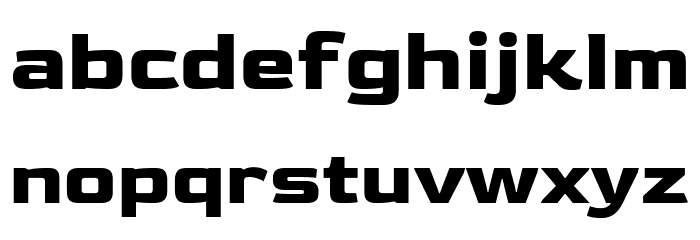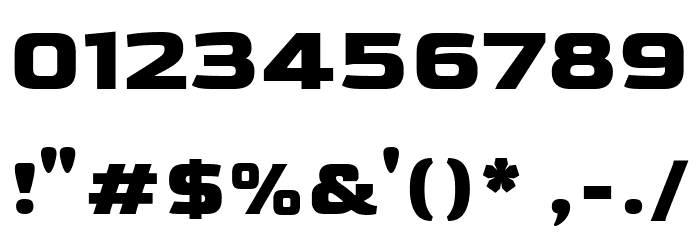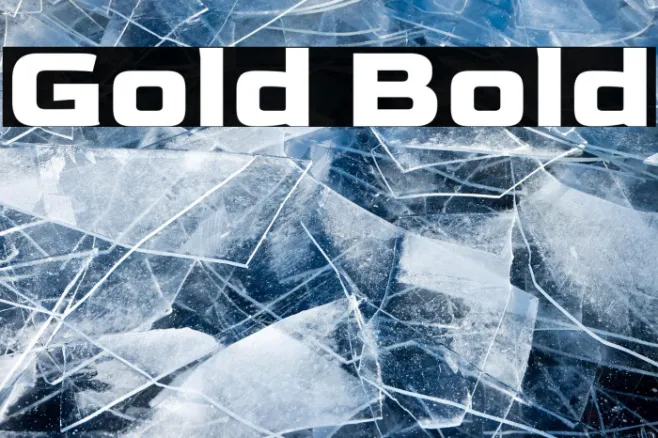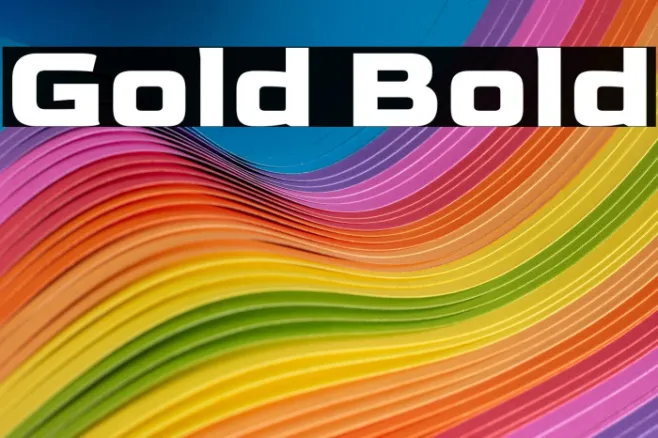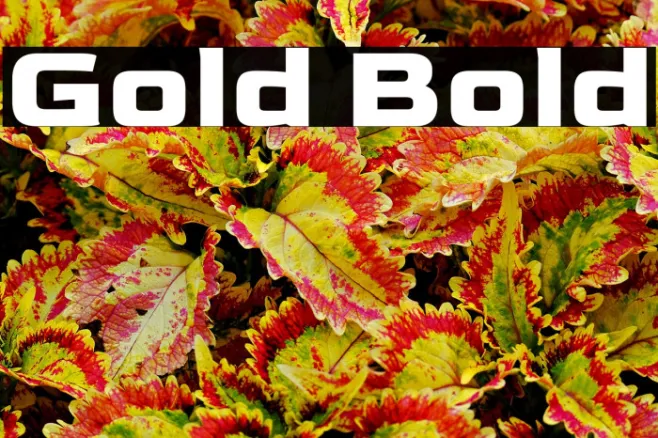
Gold Bold Font
This font features a bold and assertive style with strong geometric shapes and a modern aesthetic. The uppercase letters are uniform in height, providing a sense of stability and strength. The lowercase letters maintain a consistent weight, contributing to the overall boldness. The numerals are clear and easily distinguishable, enhancing readability. Special characters are designed with the same boldness, ensuring they stand out. The font's clean lines and lack of serifs make it suitable for contemporary designs.
A bold, geometric sans-serif font with a modern and assertive style.